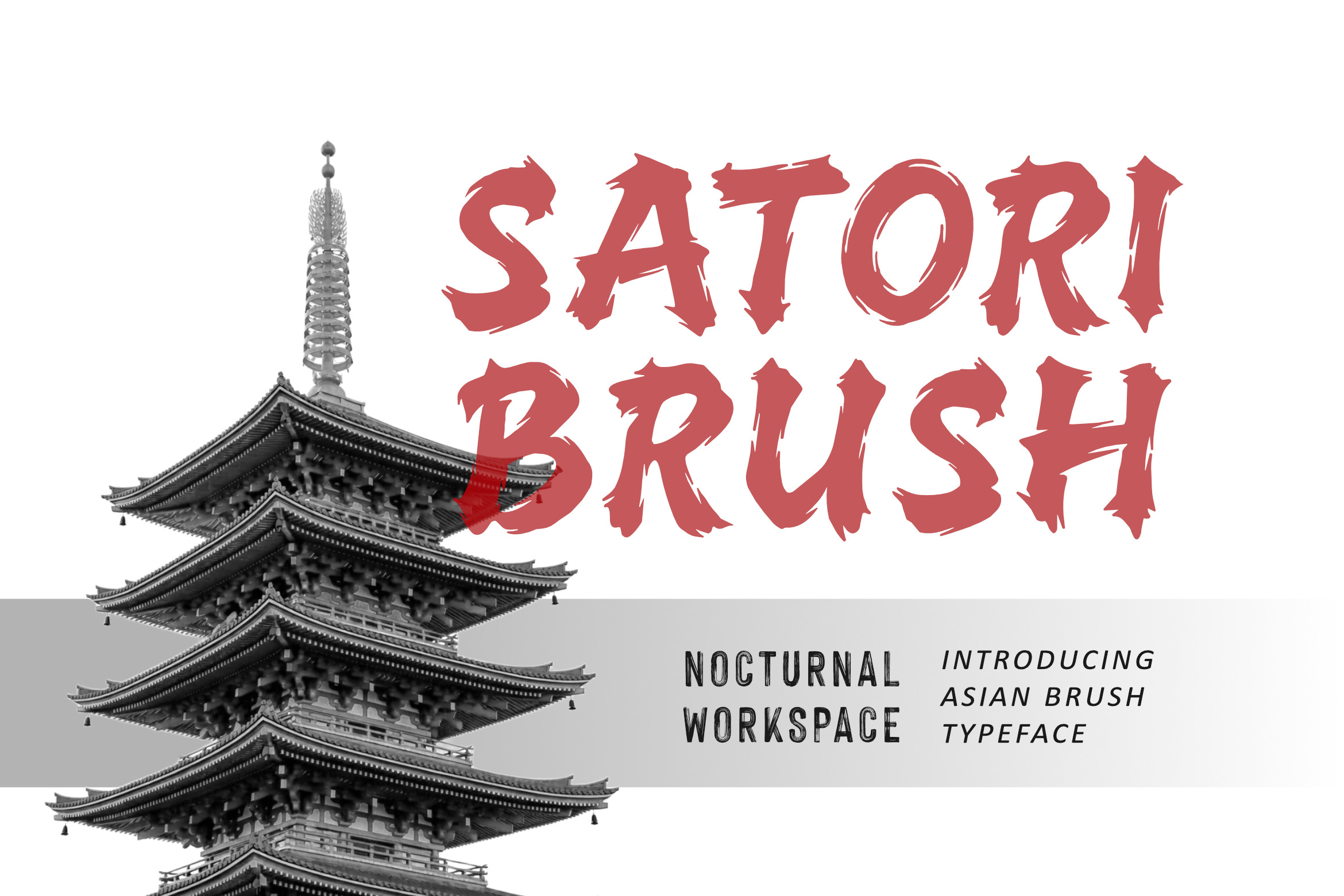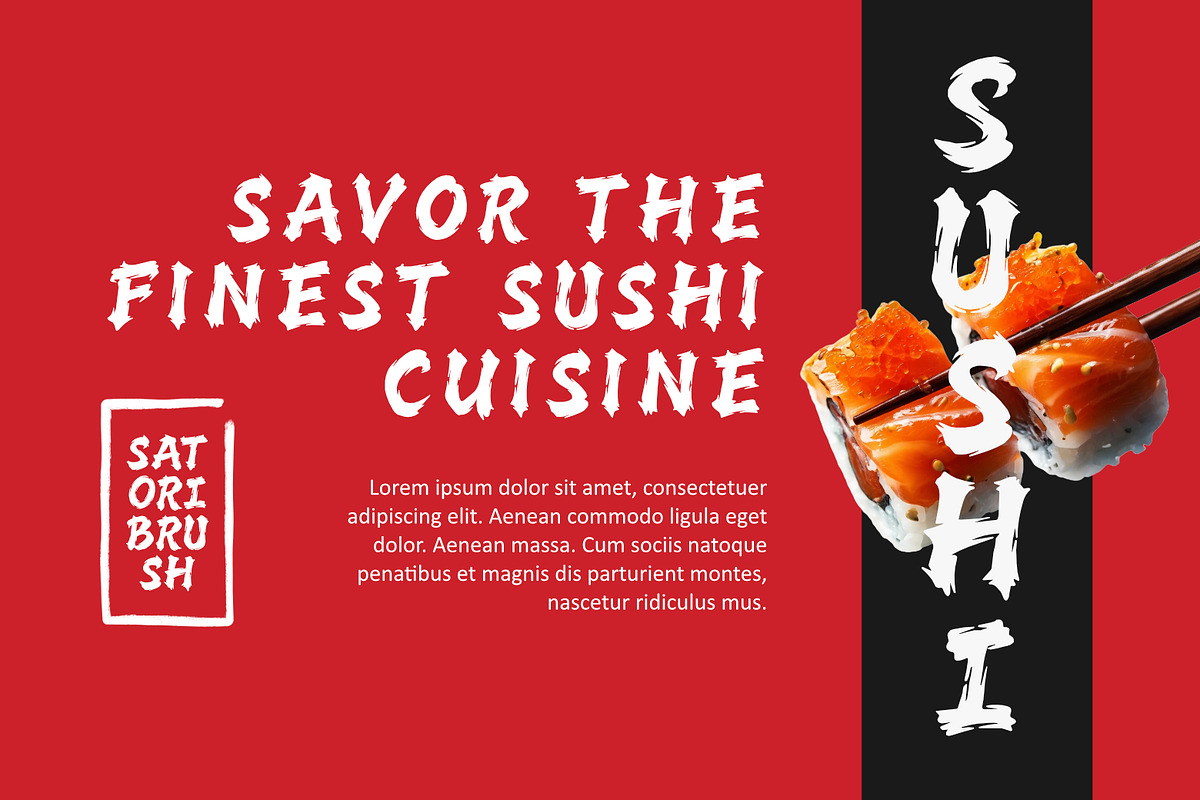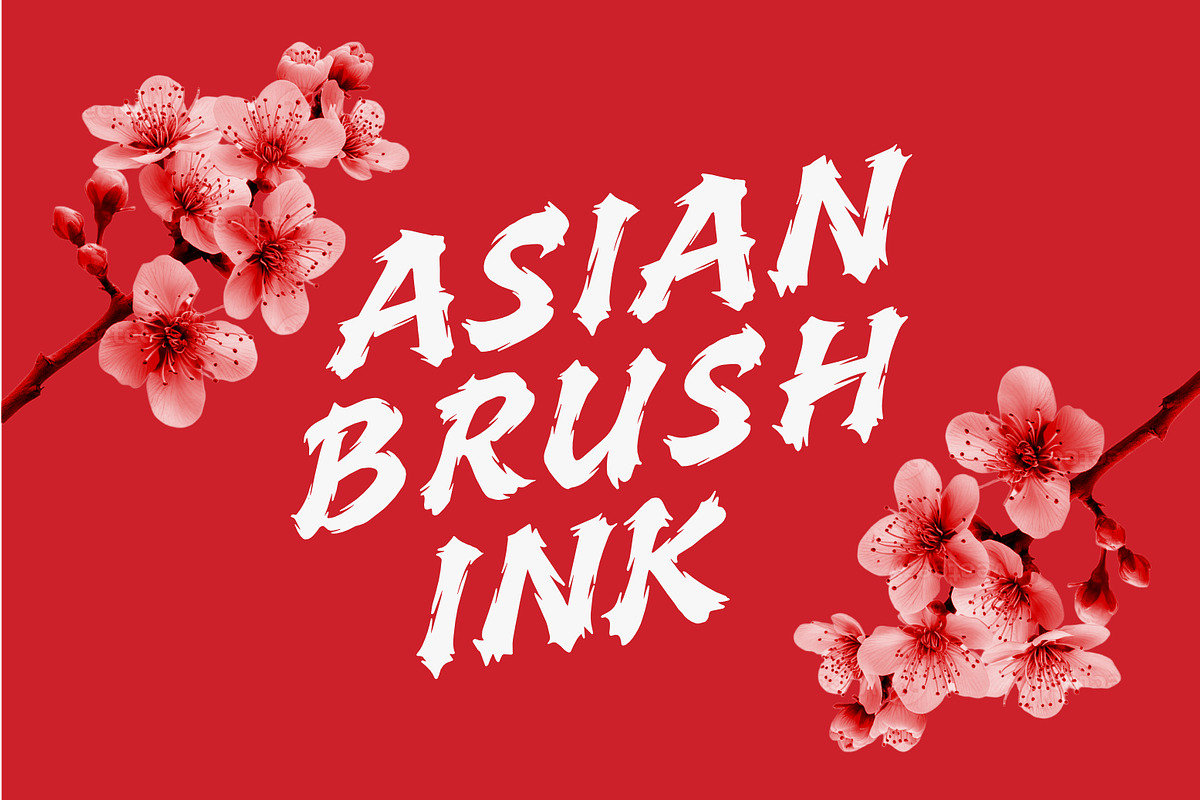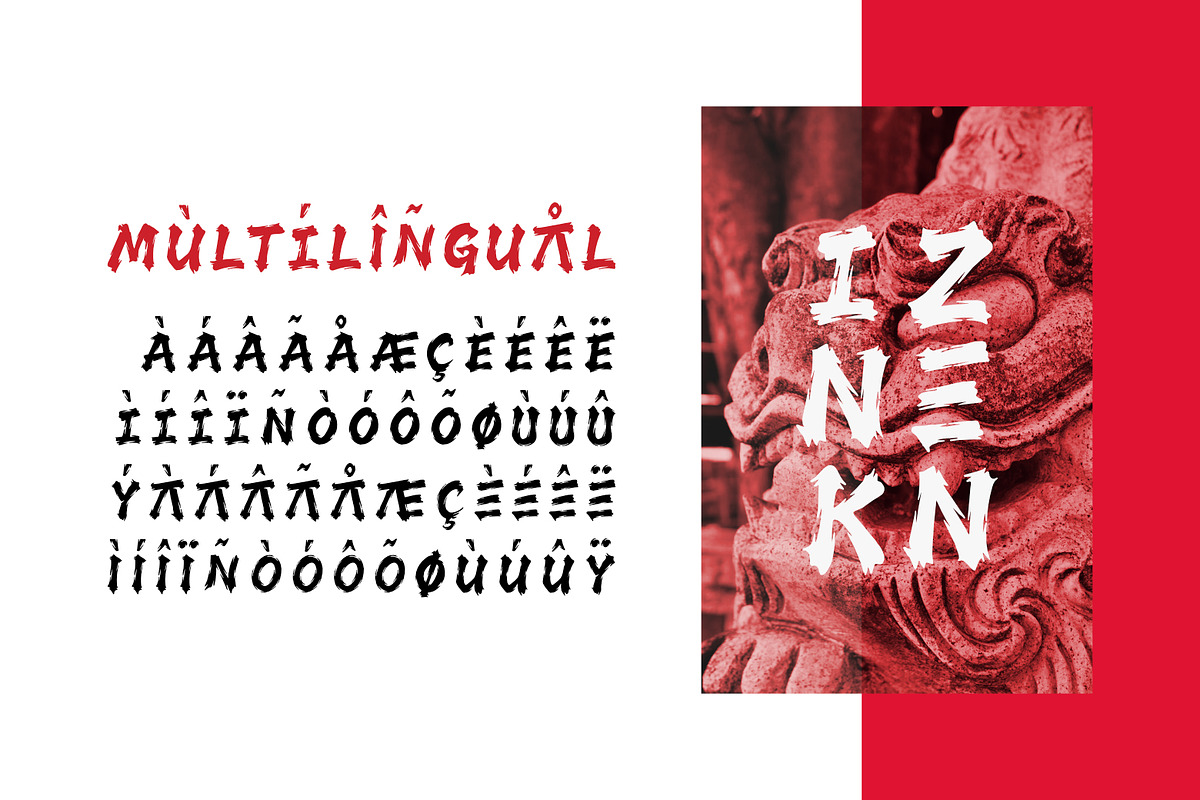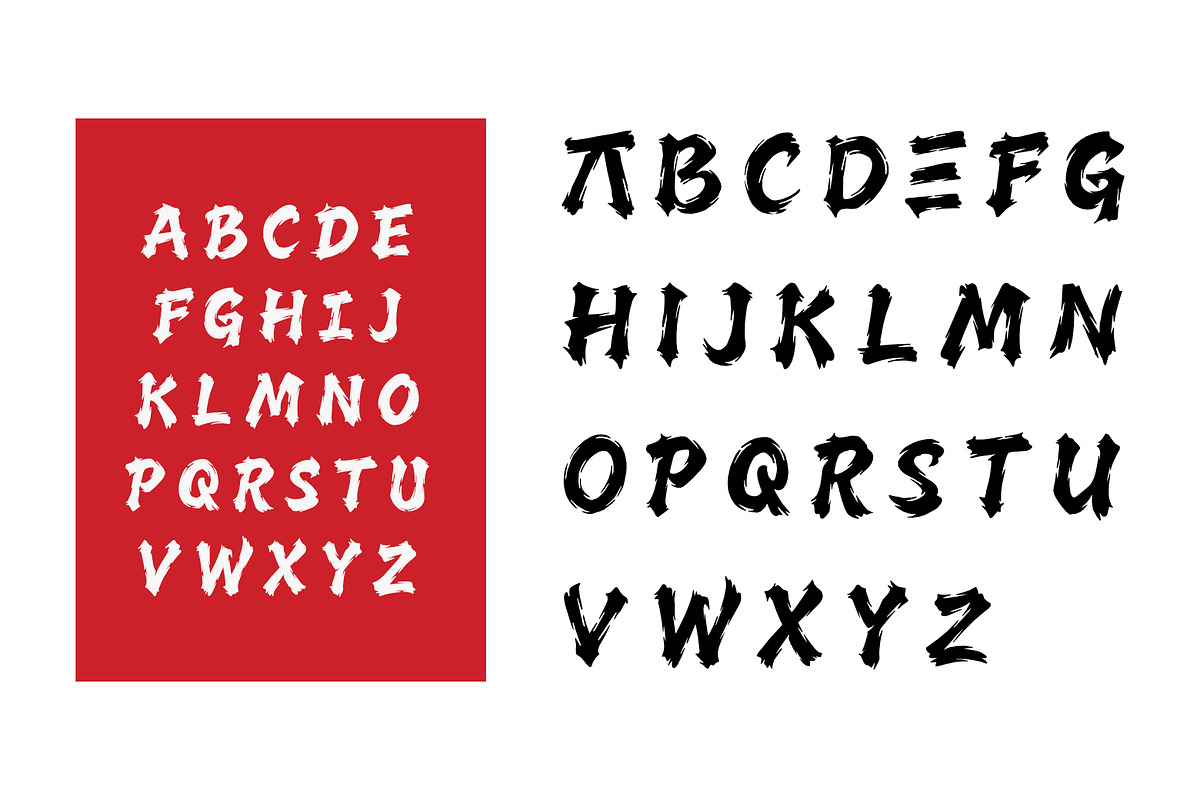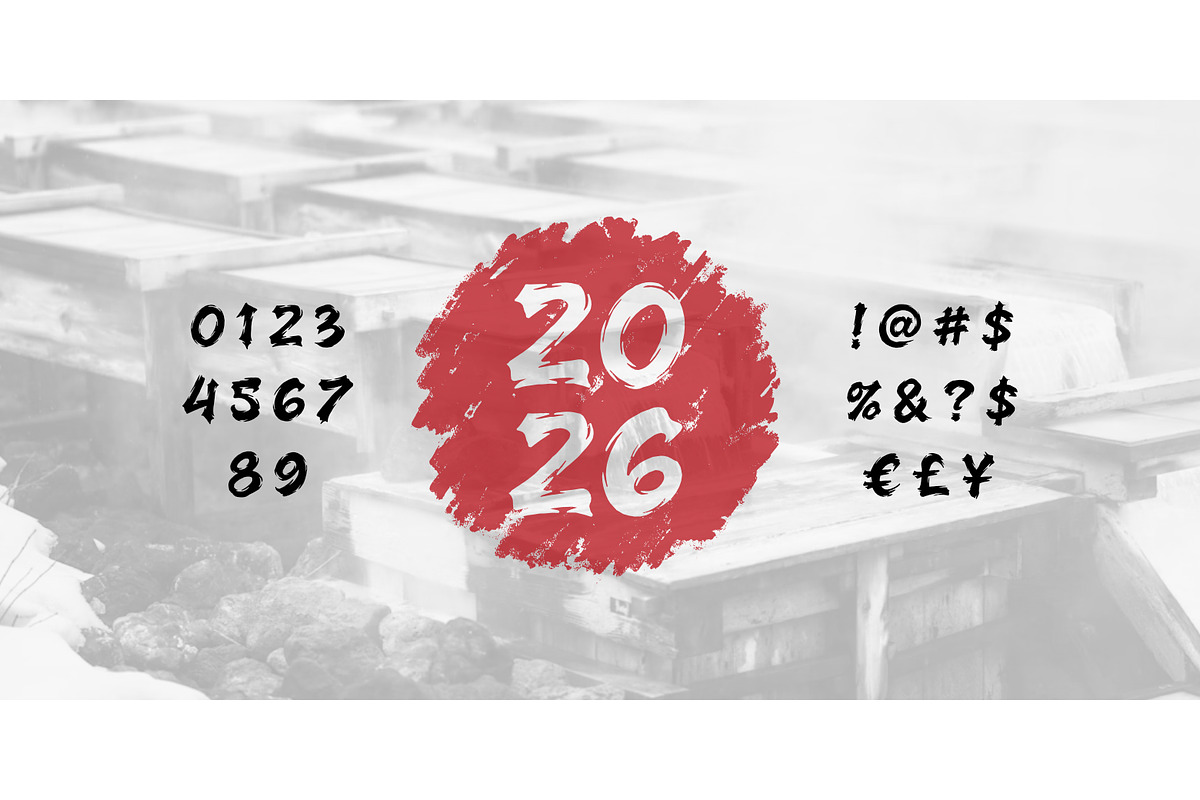
Satori Brush Font - Asian Brush Ink
Authentic Asian Ink & Calligraphy Font
- Includes a range of multilingual characters.
Designed to stand out, Satori Brush works perfectly for headlines, logos, posters, branding projects, album covers, merchandise, and music-related designs. Its funky and energetic style makes it ideal for creative projects that need personality and rhythm.
Whether you’re creating retro branding, bold typography, or expressive display text, Satori Brush delivers a unique Authentic Asian Ink feel that instantly grabs attention.